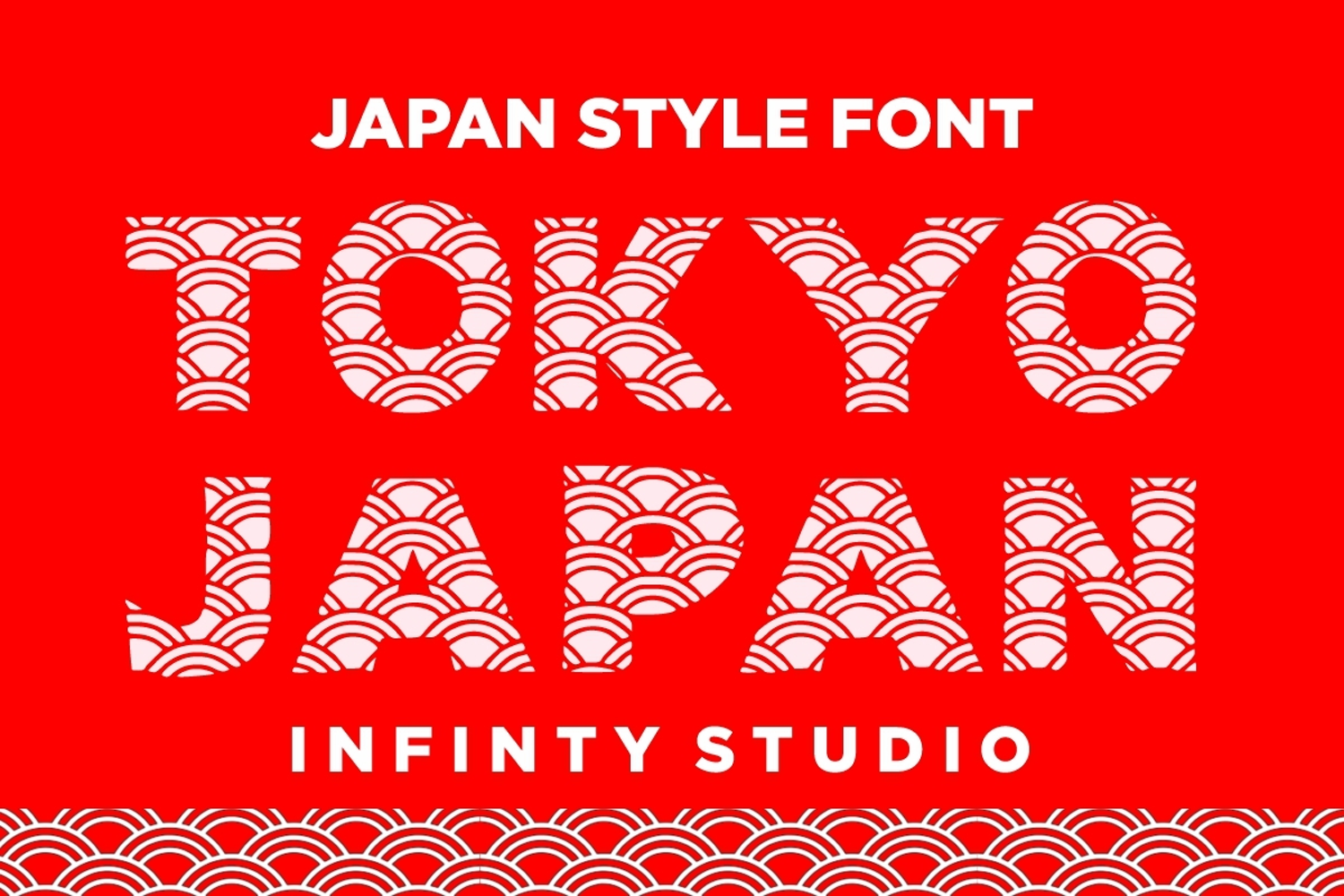
Tokyo Japan
Tokyo Japan is a Japan style font perfect for crafters. Its informal style and casual vibe will make this font a go-to choice for each of your creations that require a relaxed touch. It is suitable for any product packaging, invitation, quote, t-shirt, label, poster, logo that you wish to develop!